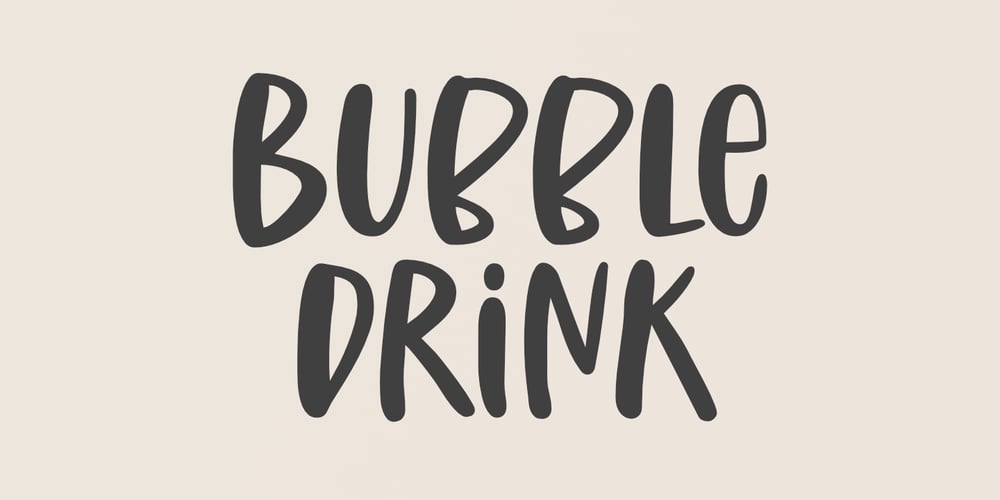
Bubble Drink Font Family was designed by Aldy Sidik and published by Epiclinez. Bubble Drink contains 1 styles and family package options. Bubble Drink is a cute and funny display font. It’s simple and friendly style makes this design incredibly versatile, fitting a wide variety of creative ideas.